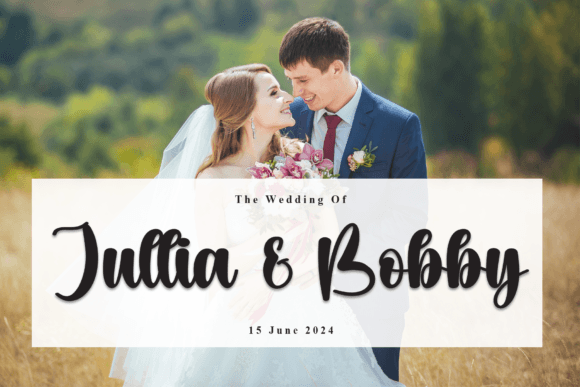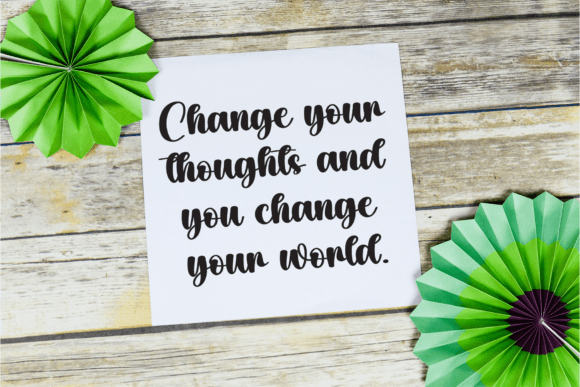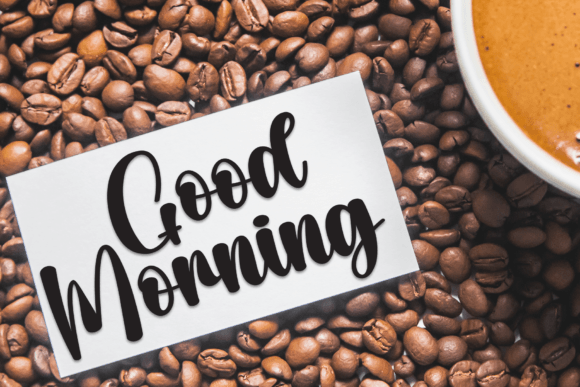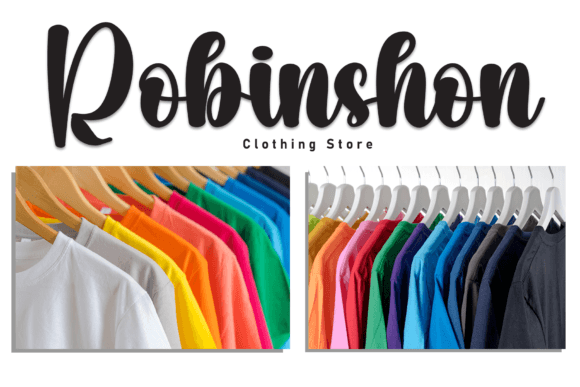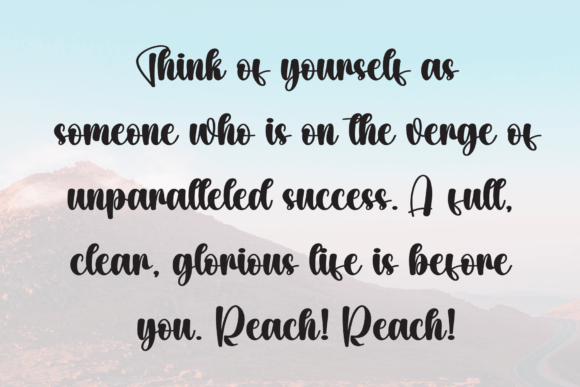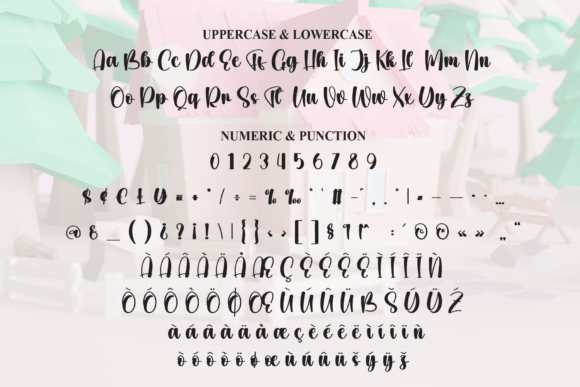
Introducing Barbie Farmhouse Font: Elevate Your Designs with Elegance
Are you on the hunt for a font that exudes elegance, sophistication, and a touch of rustic charm? Look no further than the enchanting Barbie Farmhouse Font. This beautiful handwritten font is designed to add a distinct and timeless style to your favorite projects, making it a must-have for designers and crafters alike.
The Charm of Barbie Farmhouse Font
Barbie Farmhouse Font is a neat and beautiful handwritten font that boasts an elegant touch, setting it apart from other fonts in its class. Its incredibly distinct style is reminiscent of traditional farmhouse charm, yet it carries a modern sophistication that will make your designs stand out. Whether you’re working on a branding project, crafting beautiful wedding invitations, or creating engaging social media content, this font is sure to impress.
Key Features of Barbie Farmhouse Font
- Elegant and Handwritten Style: The font features an elegant, handwritten style that adds a personal touch to any design.
- Distinct and Timeless: Its unique style ensures that your designs will have a timeless appeal, never going out of fashion.
- Versatile: Perfect for a wide range of projects, from branding and advertising to crafting and personal DIY projects.
- Easy to Read: Despite its elegant and cursive nature, the font maintains excellent readability, making it suitable for both headings and body text.
Perfect for Your Favorite Projects
The versatility of Barbie Farmhouse Font makes it an ideal choice for various applications. Here are a few ideas to get you started:
- Branding and Logotypes: Create a lasting impression with a unique and memorable brand identity.
- Wedding and Event Planning: Add an elegant touch to your wedding invitations, save-the-dates, and event banners.
- Social Media Graphics: Stand out on social media with beautifully designed posts and stories.
- DIY Projects and Crafts: Elevate your handmade crafts, such as journals, planners, and home decor items, with a personal and stylish touch.
Why Choose Barbie Farmhouse Font?
In a world where fonts are plentiful, why choose Barbie Farmhouse Font for your projects? The answer lies in its unique blend of elegance, charm, and versatility. This font not only saves you time but also offers a professional look that can significantly enhance your designs. Moreover, its ease of use makes it accessible to both seasoned designers and beginners looking to add a professional touch to their work.
- Pair it Wisely: Combine Barbie Farmhouse Font with complementary fonts to create visual interest and hierarchy in your designs.
- Experiment with Sizes and Colors: Play around with different sizes and colors to find the perfect combination that suits your project’s theme.
- Consider Your Audience: Tailor your font usage to appeal to your target audience, ensuring your message is conveyed effectively and aesthetically.
Barbie Farmhouse Font is more than just a font; it’s a design element that can transform your projects with its elegant and timeless style. Whether you’re a professional designer or a DIY enthusiast, this font offers the perfect blend of charm and sophistication to elevate your designs. So, fall in love with its distinct style and use it to create spectacular designs that leave a lasting impression.